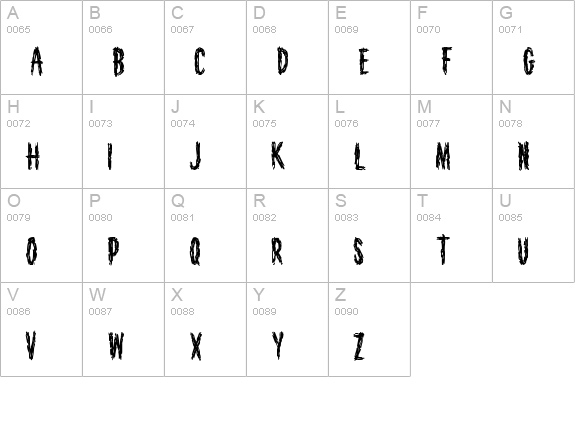
HouseofHorror Font Details
HouseofHorror is a spooky and chilling font that will send shivers down your spine. Perfect for Halloween-themed designs, horror movie posters, and eerie graphics, this font exudes an atmosphere of fear and mystery. Its jagged edges and distressed appearance give it a truly haunted feel, making it ideal for adding a touch of darkness to your projects. What's even better is that HouseofHorror is available for free download at FontsMarket.com. Yes, you read that right - this bone-chilling font can be yours at no cost, allowing you to unleash your creativity without breaking the bank. So why wait? Download HouseofHorror today and dive into the world of horror typography like never before.